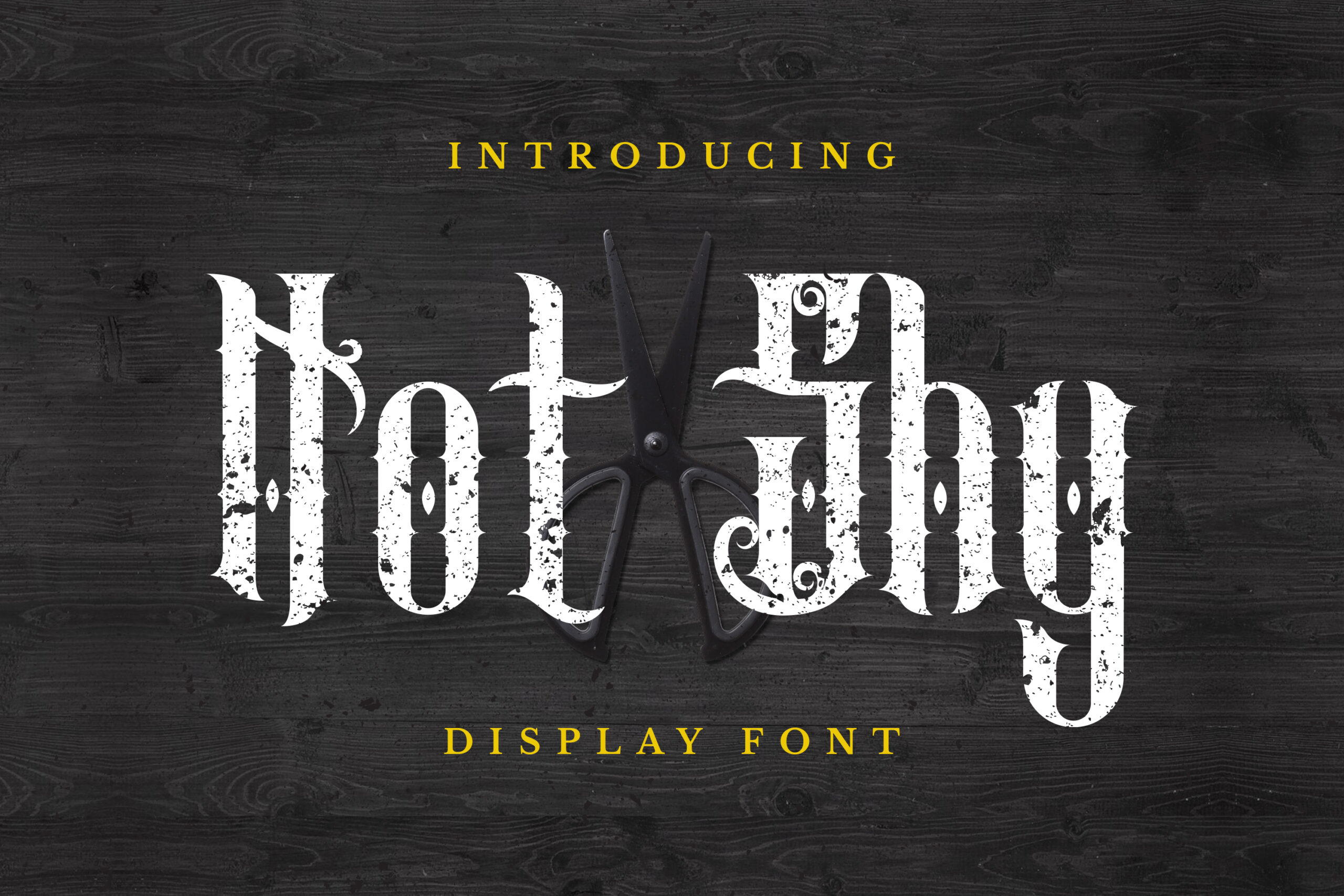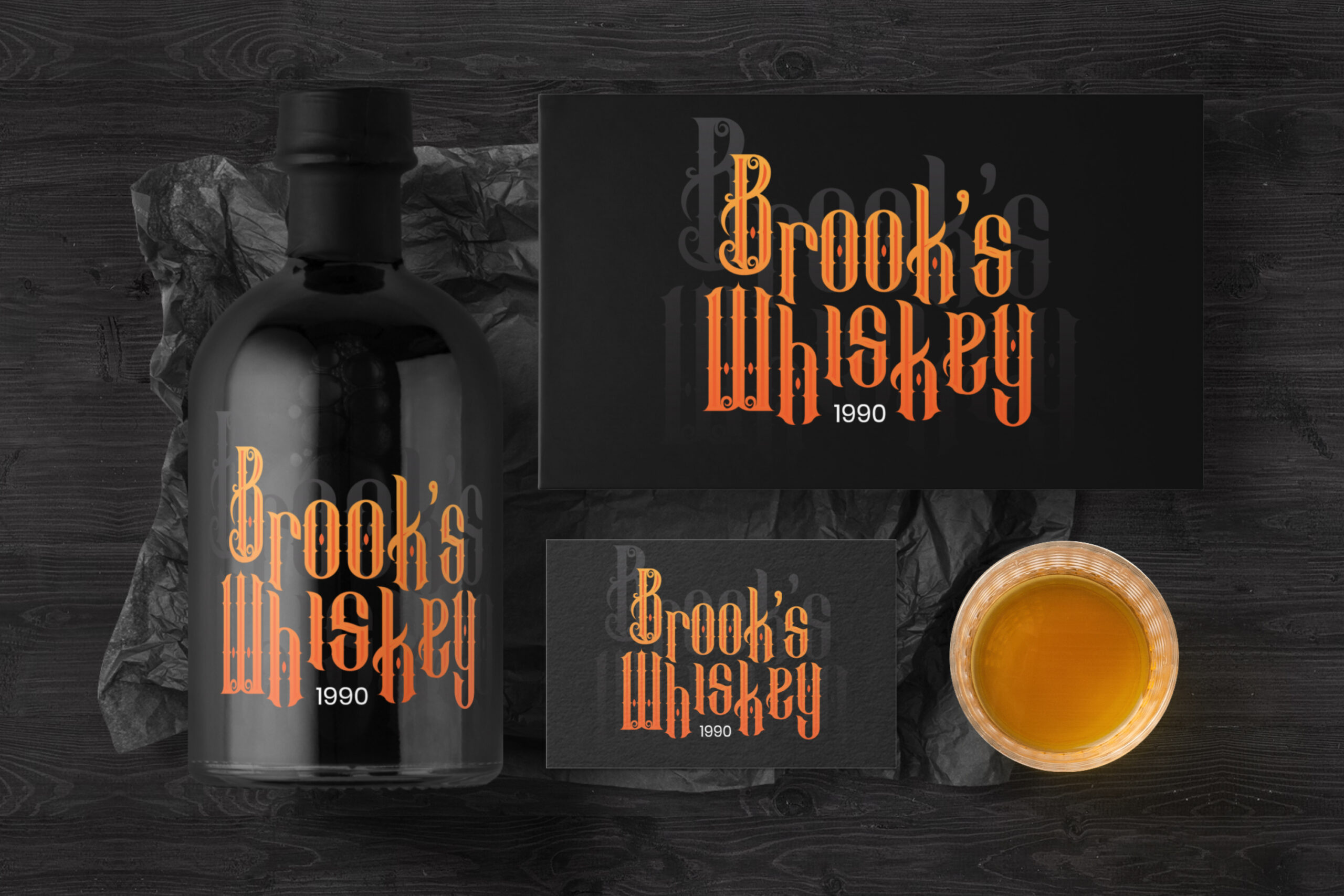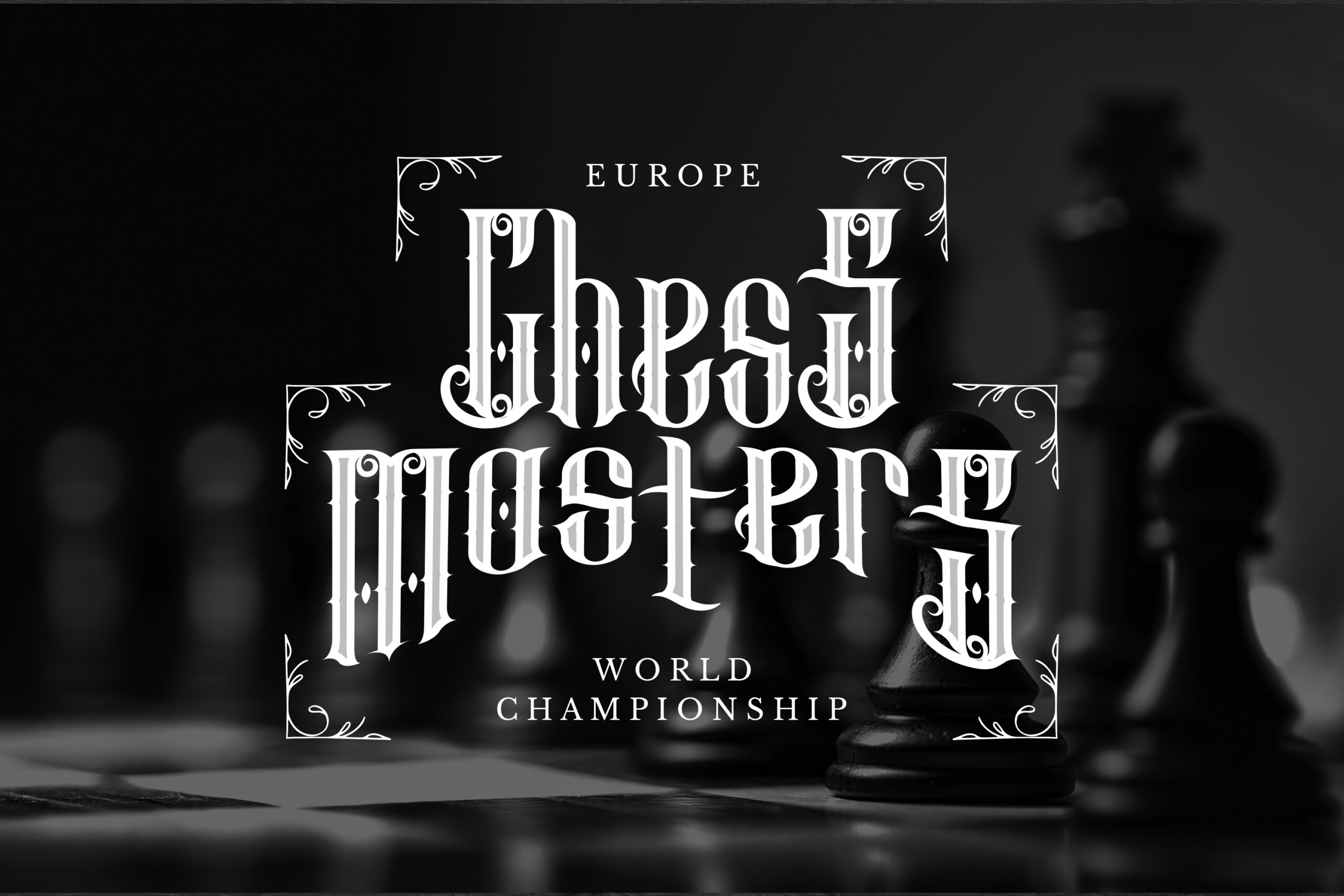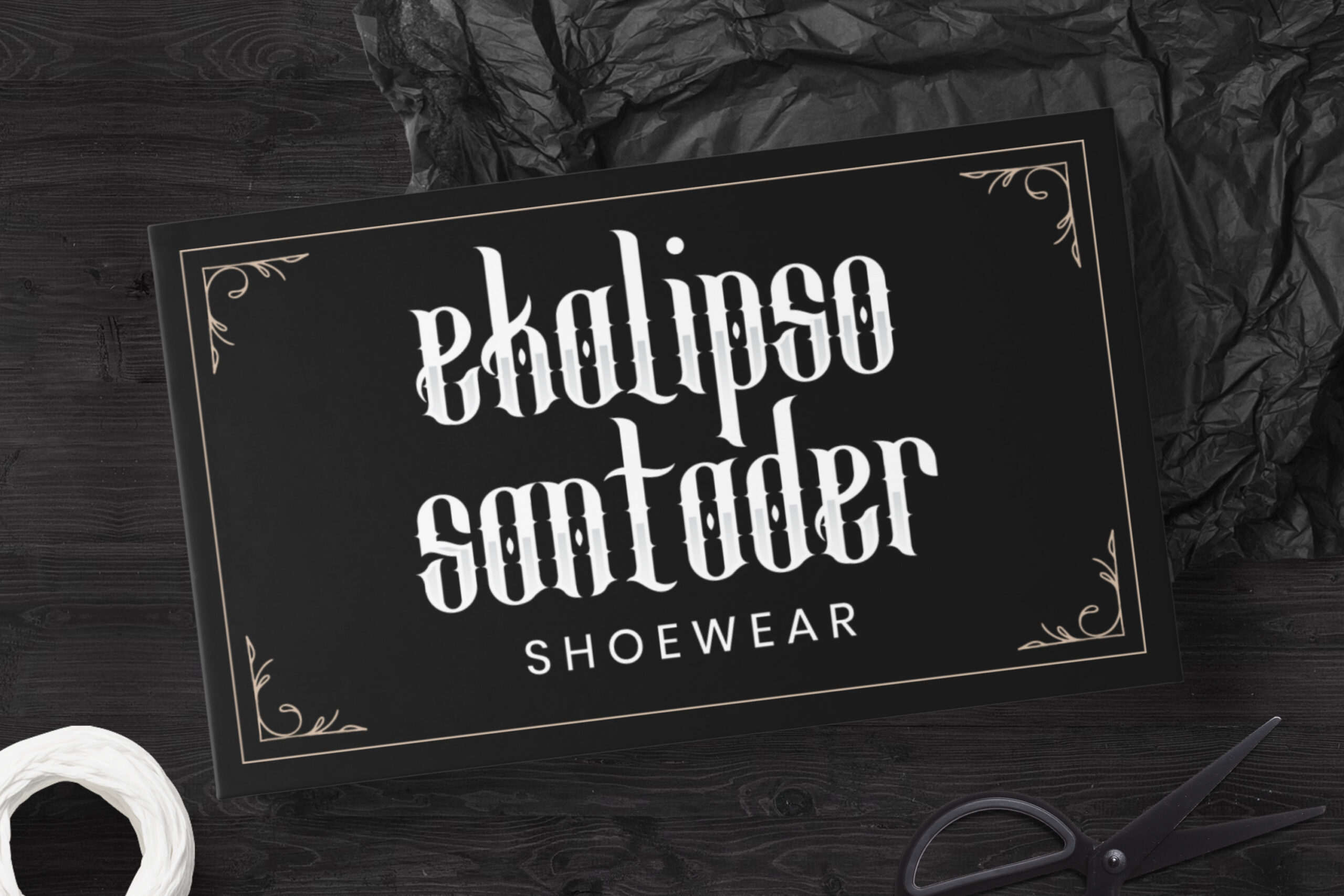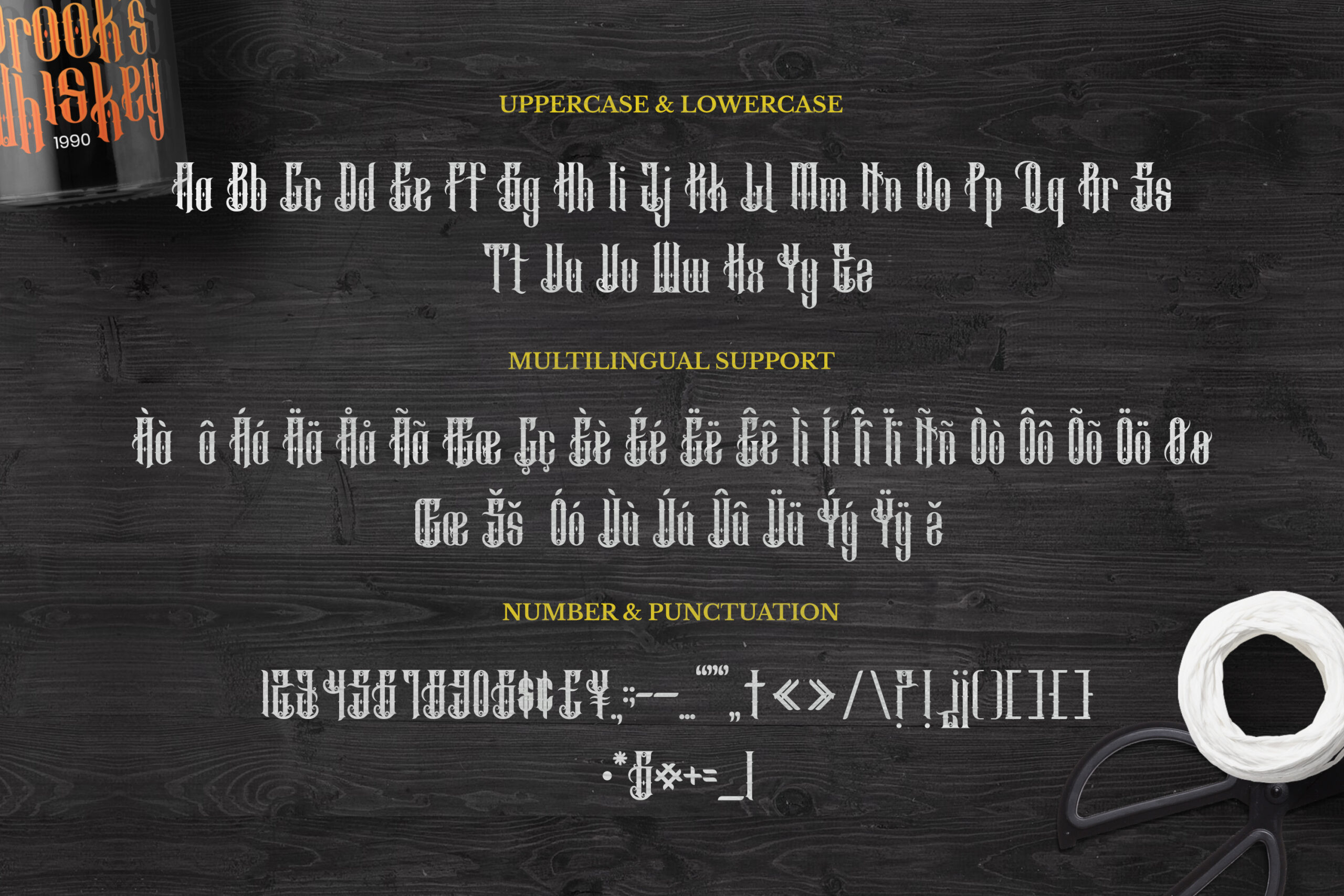
NotShy is a gothic-inspired display font with a bold, distressed texture that brings vintage flair and dark elegance to your designs. Its tall, condensed letterforms combined with ornamental swashes and grunge texture give it a dramatic and commanding presence. Ideal for liquor branding, tattoo designs, posters, or apparel that crave a rebellious, old-school vibe. The font masterfully blends classic blackletter aesthetics with modern usability.
Featuring uppercase, lowercase, multilingual characters, and a full set of numbers and punctuation, NotShy is well-suited for a variety of creative applications. Whether you’re working on whiskey labels, gothic events, or editorial headlines, this font adds a fierce and authentic edge to your typography.
NotShy